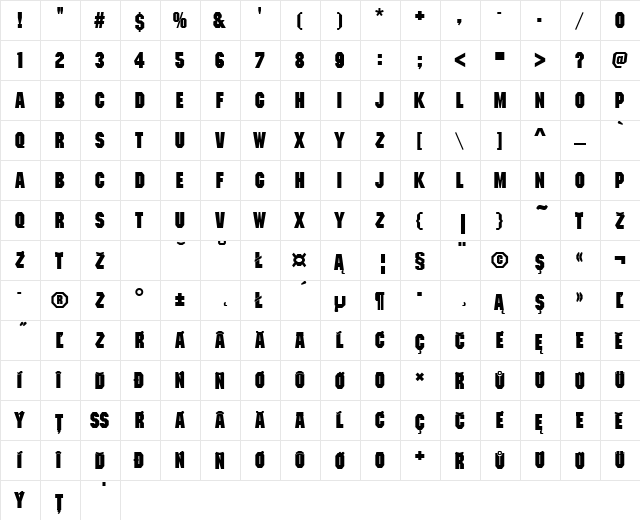
MachineItcPEE Bold
Design Context for MachineItcPEE Typeface
MachineItcPEE is a composed and adaptable typeface that performs quietly and consistently across a wide range of design contexts. Its bold stroke weight gives it real presence on the page.